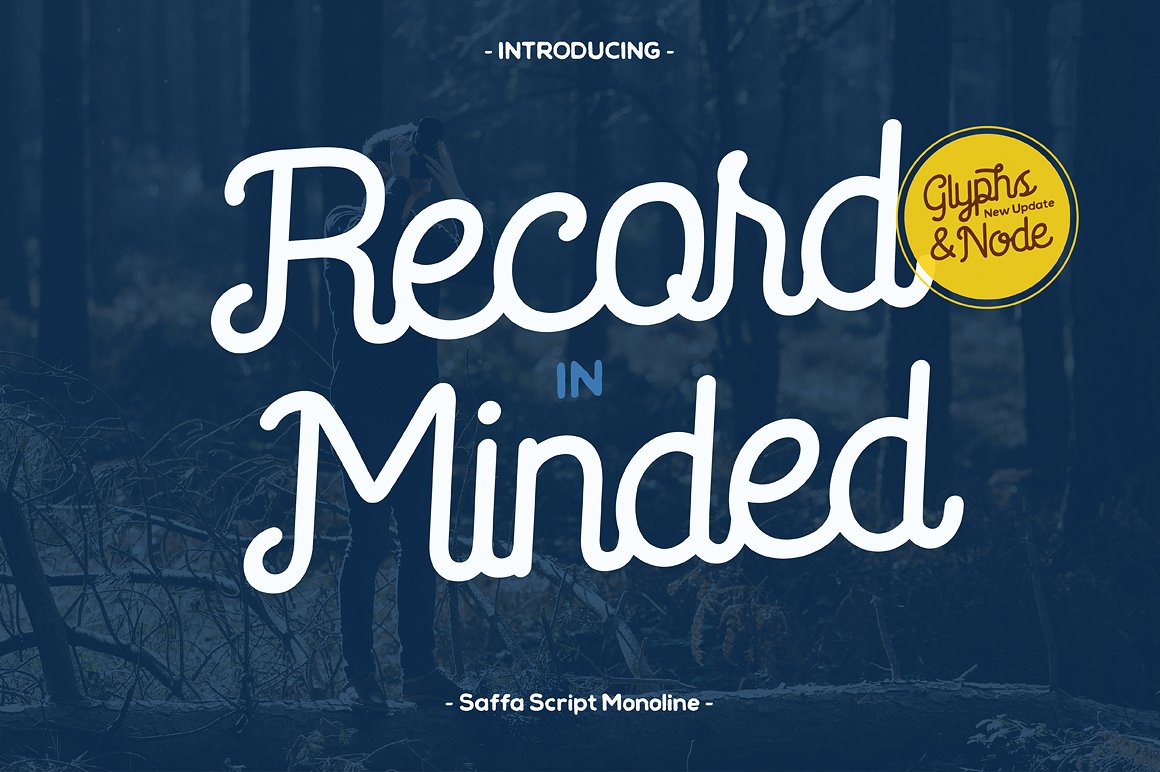
Saffa Script Monoline Font
Saffa Script Monoline is a letter with original handwriting style, nice applied in various products. Complete with multilingual characters, ligature, alternate and swash. It is suitable for quote, clothing design, vintage logo, label, poster, packaging design and other designs.